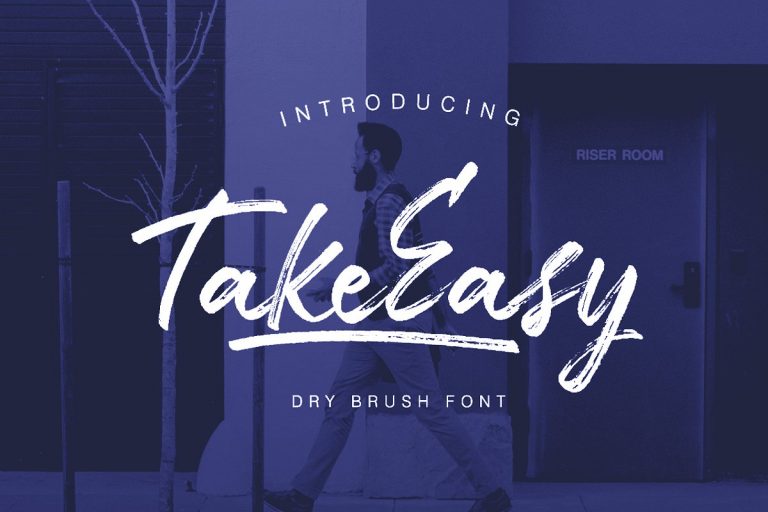
TakeEasy Brush Font
A dry brush font, made by manual hand brush which gives personal feel into your design needs. Introducing TakeEasy Font. It is designed by Letterhend. It also comes in uppercase, lowercase, punctuations, symbols & numerals, stylistic set alternate, ligatures, etc. Suitable to use in various project such as logo, apparel, company branding, signature, anything you like.